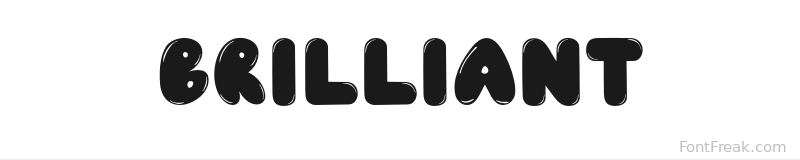
BRILLIANT
About BRILLIANT
BRILLIANT by MJType is a captivating display font that combines playful elements with bold design. This font features a unique, rounded style that exudes warmth and approachability, making it an excellent choice for various creative projects. The stroke weight is consistent, offering a balanced appearance, while the smooth curves add a touch of sophistication. The spacing between characters is generous, enhancing readability and making it suitable for both headlines and body text.
The BRILLIANT font is perfect for a range of applications, including wedding invitations that aim for a fun yet elegant vibe, vibrant movie posters that need to capture attention, eye-catching restaurant menus that entice diners, and engaging social media graphics designed to stand out. It appeals to graphic designers seeking to infuse a sense of creativity into their work and small business owners looking for an inviting typeface to represent their brand effectively. Content creators will also find this font valuable for enhancing their visual storytelling, whether in blogs, videos, or promotional materials.
What sets the BRILLIANT font apart is its versatility and charm. It strikes a perfect balance between being playful and professional, making it an ideal choice for any project that aims to leave a lasting impression. The fact that it is available as a freeware makes it accessible to a broader audience, allowing both professionals and amateurs to utilize its unique qualities without any financial barriers. For those looking to elevate their designs, the BRILLIANT font free download offers an exciting opportunity to experiment with a font that truly stands out in any creative endeavor.